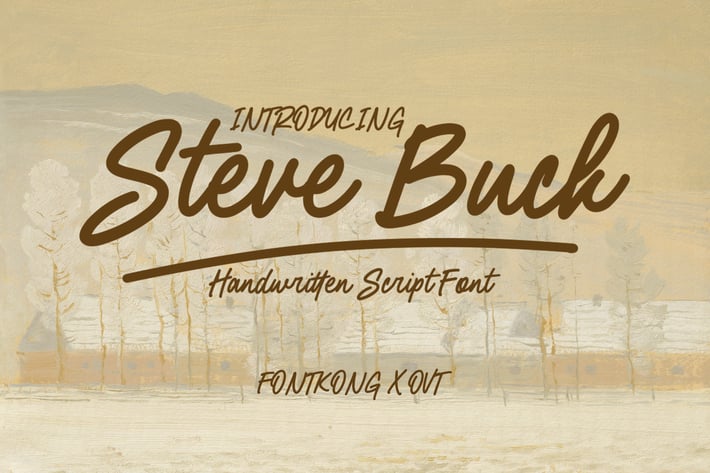
Steve Buck – A Handwritten Script Font
Introducing Steve Buck, a handwritten script font that combines charm, authenticity, and a touch of elegance. Designed to mimic the natural flow of handwriting, this font brings warmth and personality to your creative projects.
What makes Steve Buck truly stand out are its beautiful swashes delicate flourishes that enhance the elegance of each character. These stylish swashes are perfect for creating graceful wordmarks, wedding invitations, branding, and social media graphics that leave a lasting impression.
Featuring a full set of uppercase and lowercase letters, numbers, punctuation, multilingual support, and stunning swashes, Steve Buck provides the versatility you need for modern, creative designs. Whether you're crafting a heartfelt message, an elegant logo, or eye-catching headers, this font adds sophistication and a personal touch to every project.
Steve Buck is your go-to font for handwritten beauty with a stylish twist.